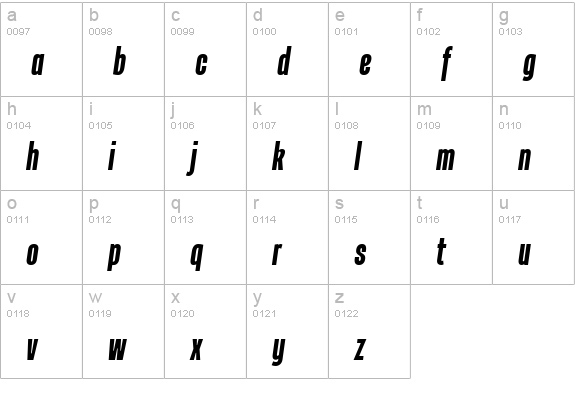
Tandelle Bold Italic is a strong, high-contrast, italic variant in the Tandelle typeface family \xE2\x80\x94 well suited to headlines, attention-grabbing titles, and strong calls-to-action.
Tandelle Bold Italic font is a striking and dynamic typeface that exudes a sense of modern elegance and sophistication. Its bold strokes and slanted italics create a unique visual impact that is perfect for making a statement in your design projects. The fluidity of the italicized characters adds a touch of flair and personality, making this font a versatile choice for various creative applications. What makes Tandelle Bold Italic font even more appealing is that it is available for free download at FontsMarket.com. This means you can easily access this stylish font without any cost, allowing you to elevate your designs without breaking the bank. Whether you're working on branding materials, editorial layouts, or digital designs, Tandelle Bold Italic font is sure to add a touch of sophistication and style to your projects. Download it today and unleash your creativity with this stunning typeface.